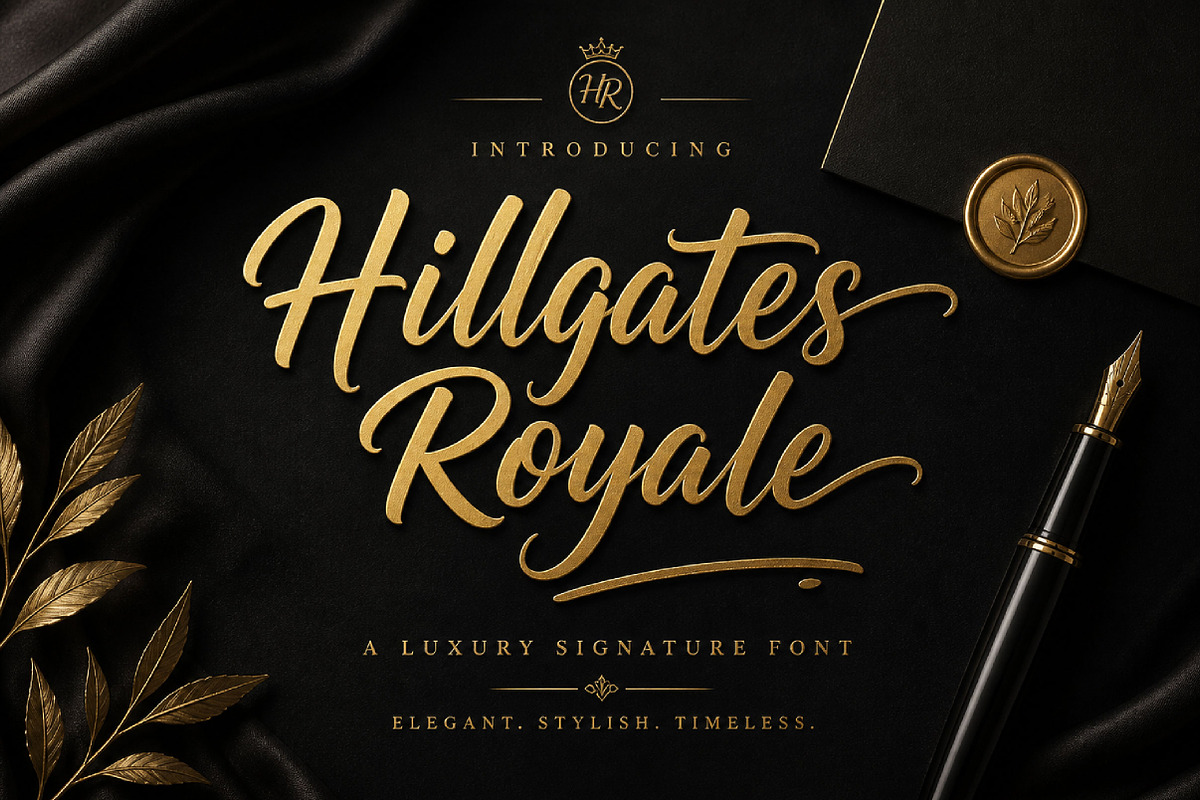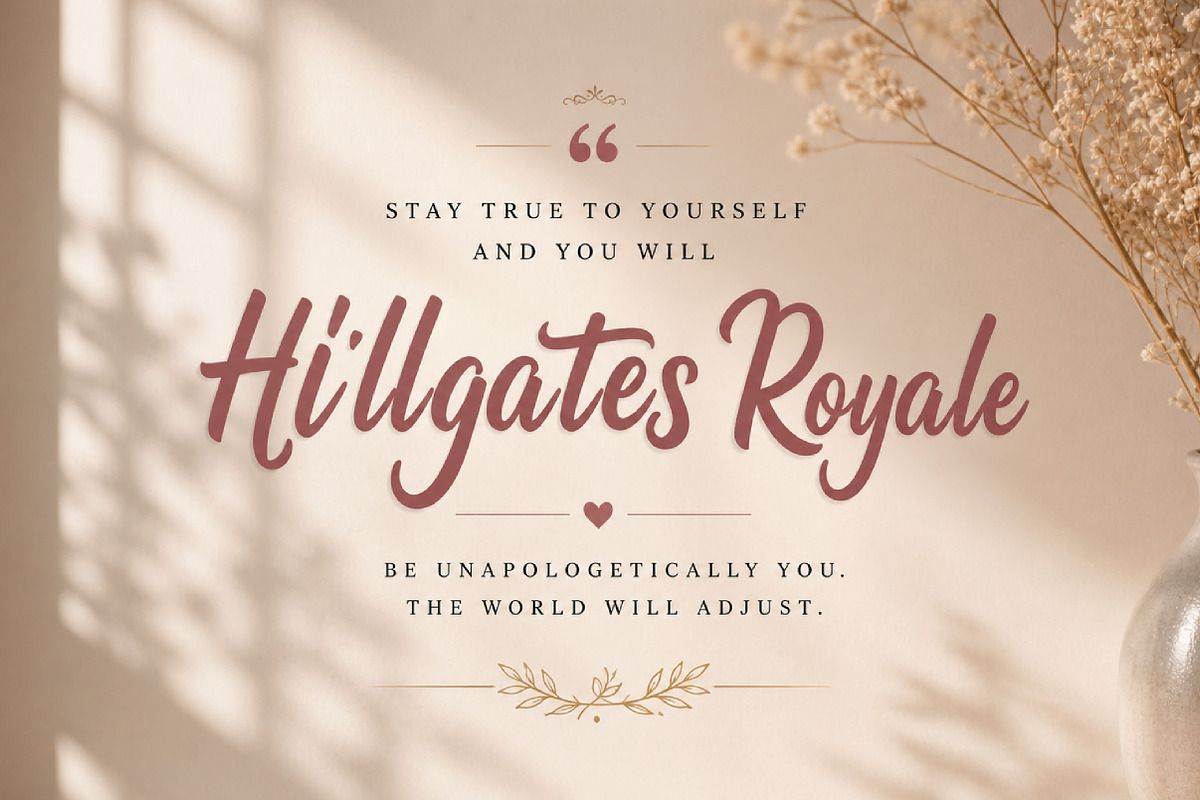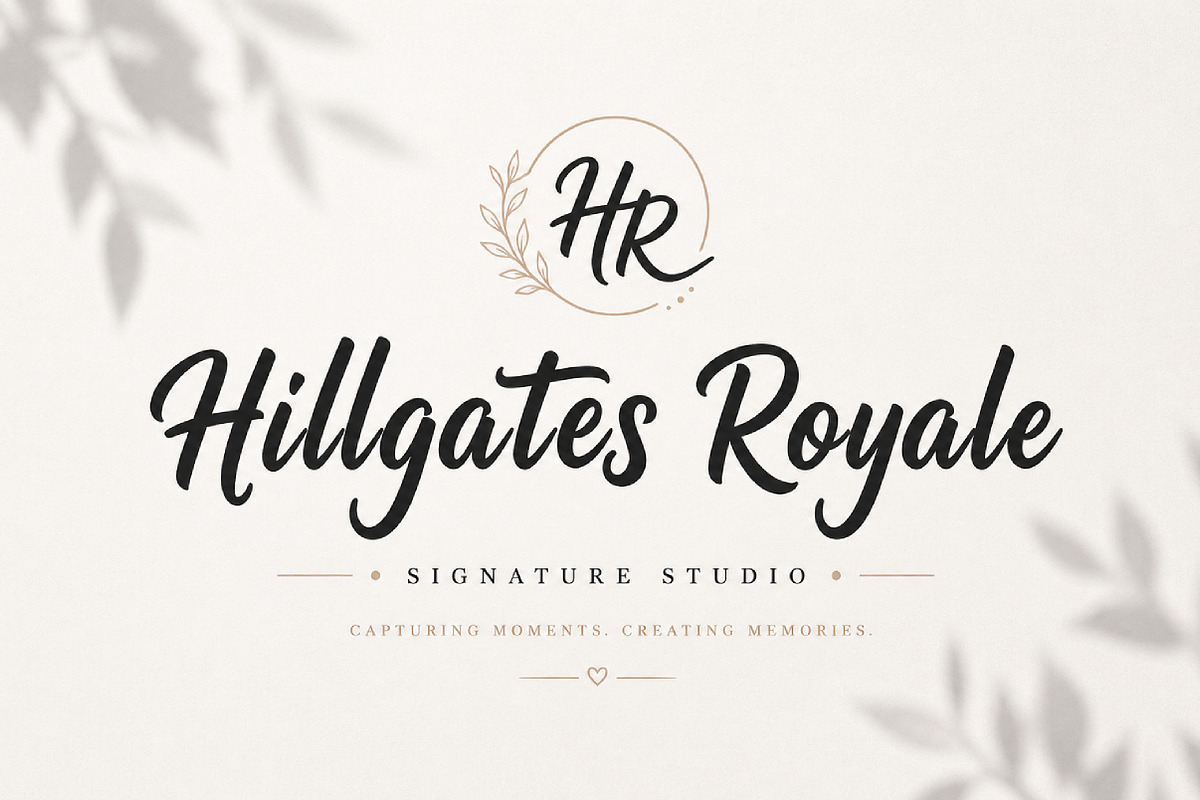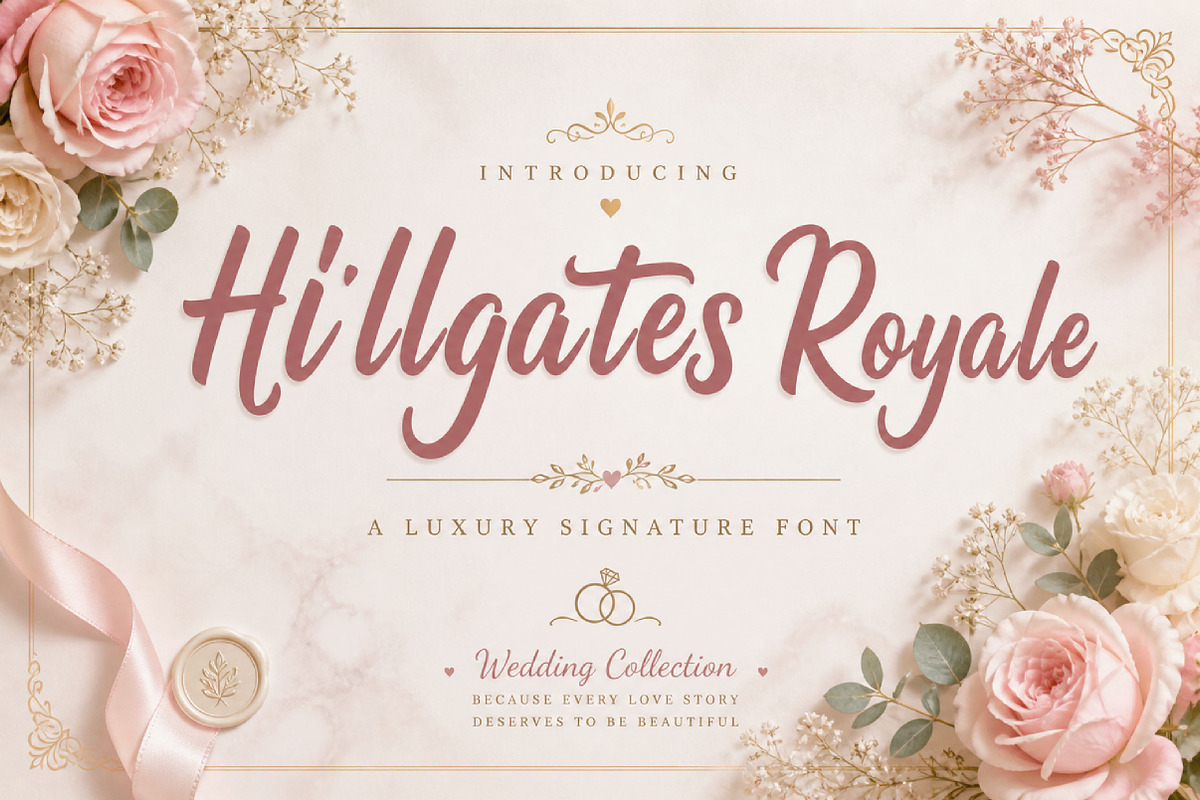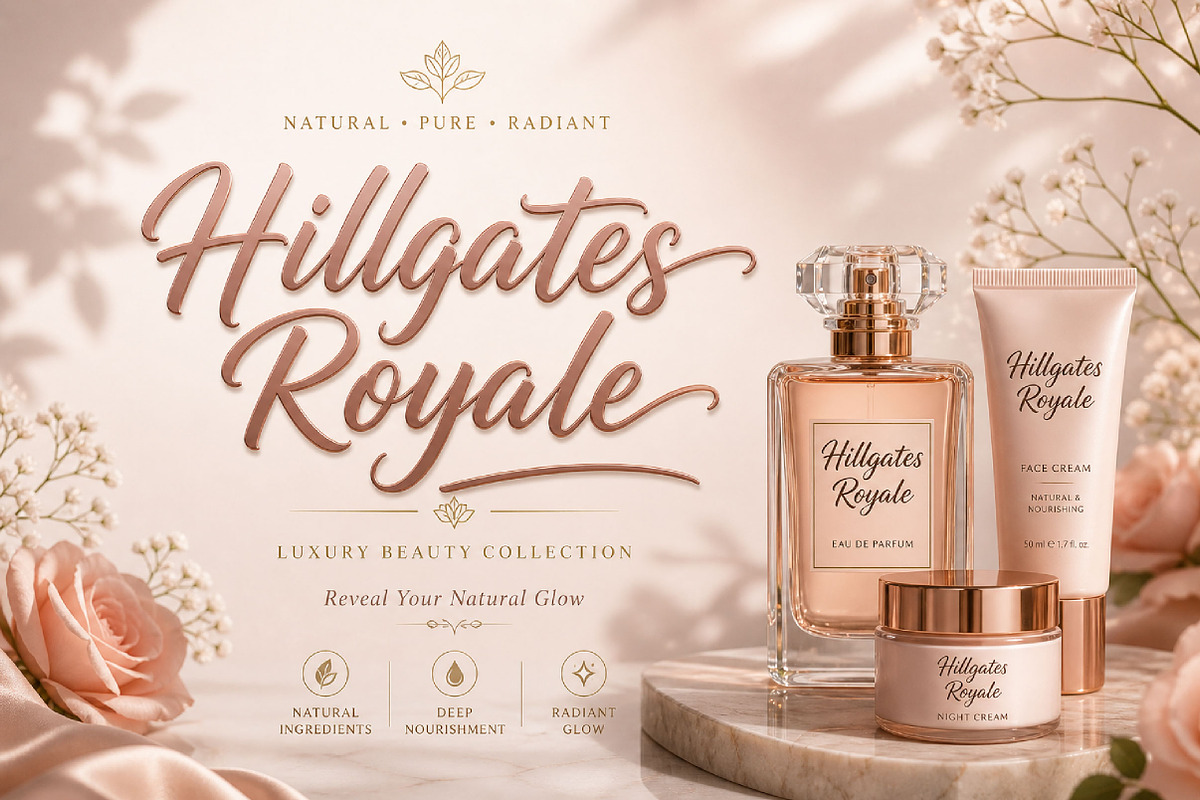
Hillgates Royale
Hillgates Royale – Elegant Script Font
Hillgates Royale is a smooth, elegant, and stylish script font, perfect for branding, logos, wedding invitations, packaging, and luxury creative projects.
Hillgates Royale is a beautiful script font designed to bring elegance, sophistication, and charm into your designs. With its flowing strokes, graceful curves, and refined handwritten style, this font creates a luxurious and eye-catching look that feels both modern and timeless.
Its stylish and classy character makes Hillgates Royale perfect for projects that need a premium and elegant touch. Whether you are designing branding, wedding invitations, product packaging, social media graphics, beauty logos, greeting cards, or stylish quotes, this font helps your typography stand out with grace and personality.
The smooth flowing letterforms give a natural handwritten feel while maintaining a polished and professional appearance. Suitable for both print and digital use, Hillgates Royale is an excellent choice for designers who want a font that feels elegant, feminine, and sophisticated.
Luxury branding and logos
Wedding invitations
Product packaging
Beauty and fashion projects
Greeting cards
Quotes and typography
Website headers
Premium stationery
Elegant creative designs
Uppercase letters
Lowercase letters
Elegant script style
Smooth and flowing strokes
Stylish and refined look
Perfect for display and branding use